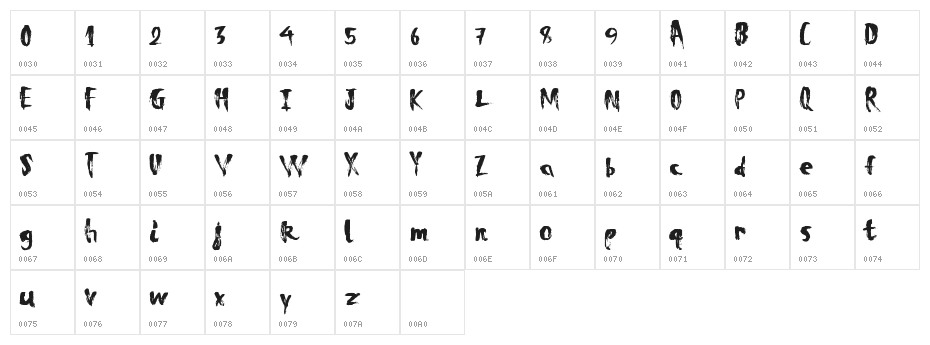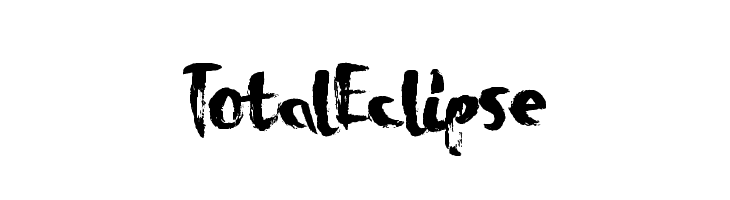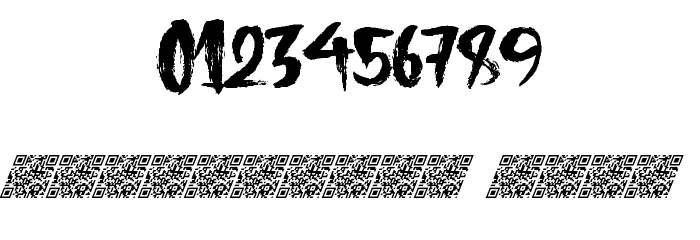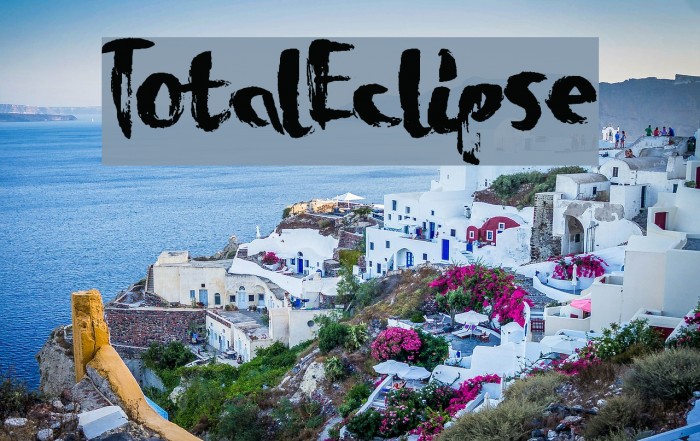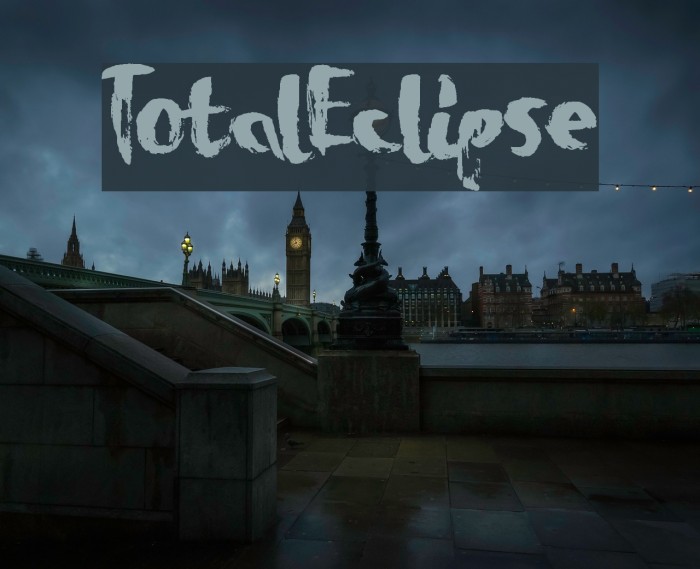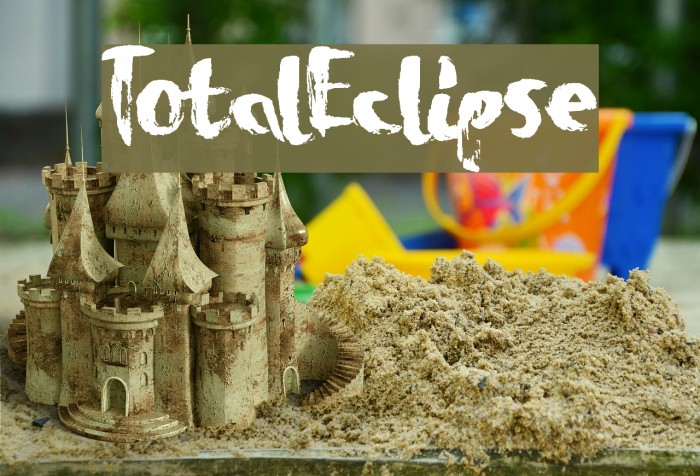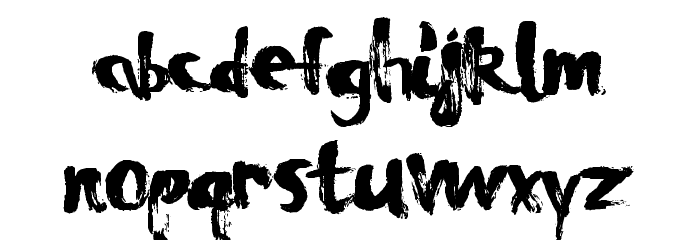
TotalEclipse Font
TotalEclipse Description
This font features a bold and dynamic brushstroke style, characterized by its rough, textured edges and expressive forms. The letters appear as if they were painted with a dry brush, giving them a raw and energetic feel. The uppercase and lowercase letters maintain a consistent style, with a slightly irregular baseline that adds to the font's organic appearance. The numerals and special characters follow the same aesthetic, ensuring a cohesive look across all text elements. This font's unique style makes it stand out, capturing attention with its artistic flair.
TOTALECLIPSE UPPERCASE
TOTALECLIPSE LOWERCASE
TOTALECLIPSE OTHER CHARS
| Proposed Projects | Ideal for artistic projects, posters, album covers, and branding that requires a bold, creative touch. |